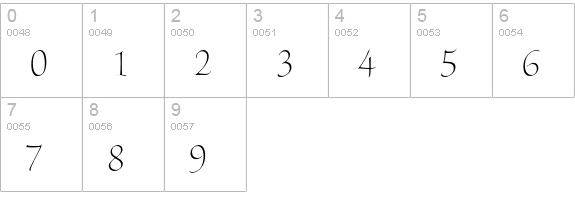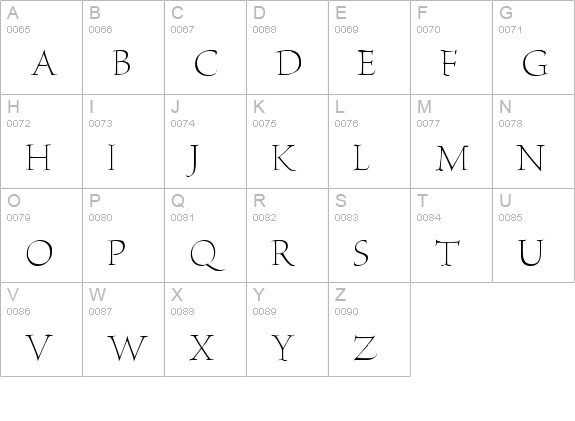
Brioso Pro Light Poster is a refined, elegant variant in the Brioso typeface family \xE2\x80\x94 well suited to elegant body text, refined sub-headings, and luxury branding.
Introducing Brioso Pro Light Poster font, a striking and elegant typeface that exudes sophistication and grace. With its refined curves and delicate lines, Brioso Pro Light Poster font is perfect for creating eye-catching posters, invitations, and other design projects that require a touch of class. And the best part? Brioso Pro Light Poster font is completely free to download at FontsMarket.com! That's right, you can elevate your designs with this exquisite font without spending a dime. So don't miss out on the opportunity to add Brioso Pro Light Poster font to your font collection and bring a touch of luxury to your projects. Download it now and let your creativity shine!